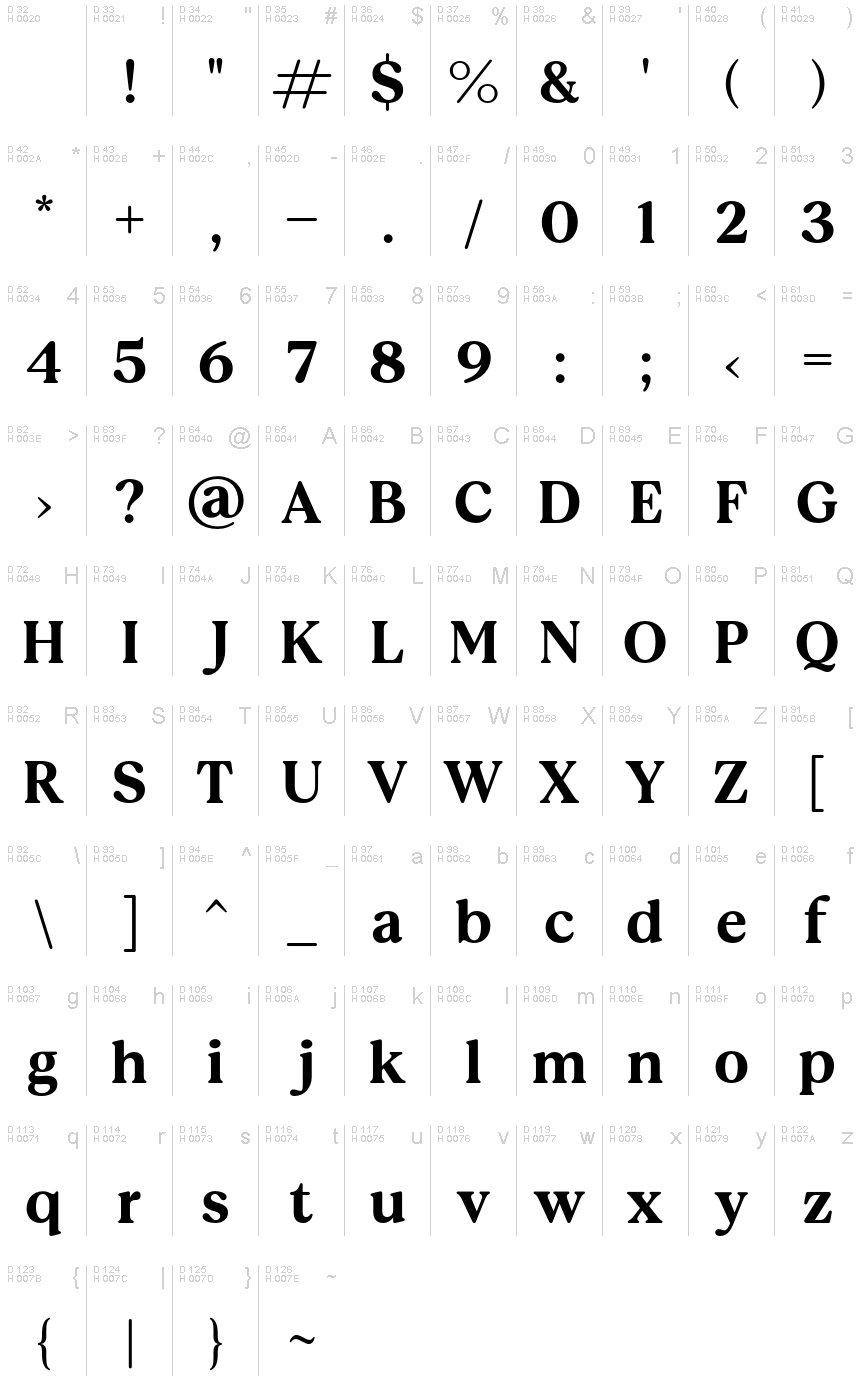
MADE Awelier PERSONAL USE ExtraBold
MADE Awelier is a captivating serif typeface crafted by MadeType. This font exudes a soft, gentle elegance with its refined strokes and subtle, flowing curves. The ExtraBold weight lends a sense of authority and strength, making it an impressive choice for headlines, titles, and attention-grabbing text. The harmonious balance between the sturdy structure and the delicate, organic forms creates a visually striking and versatile design.
MADE Awelier's versatility allows it to shine in a wide range of design applications. Its bold presence and classic serif style make it a natural fit for editorial layouts, book covers, and branding projects that demand a touch of timeless sophistication. Additionally, the font's legibility and refined aesthetic make it an excellent option for both digital and print media, from websites to high-end print collateral.